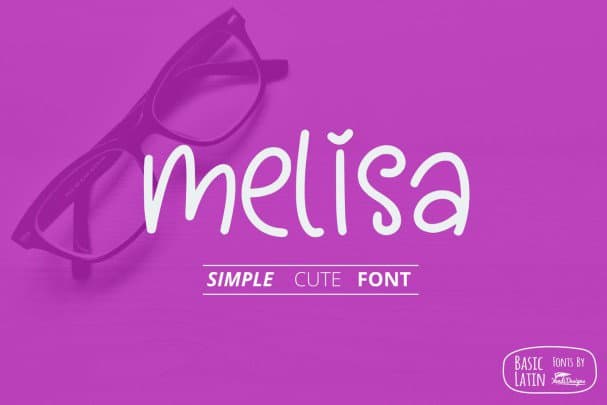
Melisa Fun Font
Melisa Fun Font is available on google fonts. It’s far one of the beautiful fonts of all time. This is utilized in creative writing and marketing and it is available for free. With this font‚Äôs beneficial spacing and remarkable device, that seems like bakery font you may without hassle creates any designs of your desire at the way to offer gold-famous exquisite and legibility.
It’s miles taken into consideration used for masses of applications in particular for signage and others lease alike. You can see that hundreds of top-notch elements that this font shape can gift and it has hundreds of font weights available as properly. Melisa Fun Font Free This font hassle an italic, hand-drawn, ambitious texture. Pinnacle-notch for any headline or titling capabilities.
This font is also regarded due to the thor font for text. This font is an ordinary font with masses of many skills and numbers of font weights available to provide in truth lose internal this. Download This little mandy font in growing an image, price models, and in each specific designing perform in which covered within the rational recommendation. It has to come to be first released and it’s far been very referred to as an entire lot as in the interim.
It’s far just like paintings gift-day significantly utilized by artists to many layout layouts.